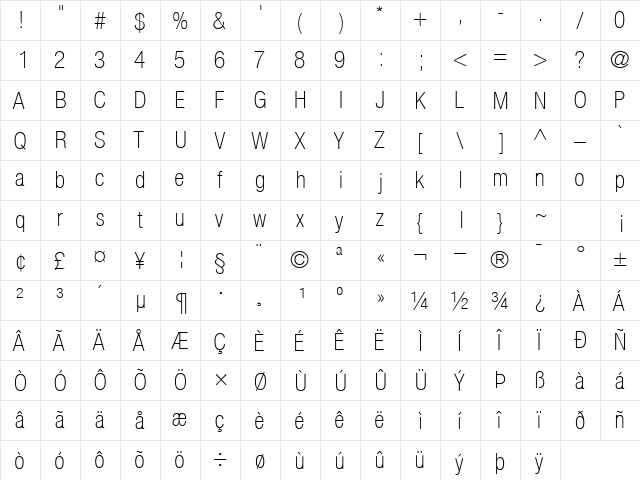
ContextRepriseThinCondSSK Regular Font Preview
Design Context for ContextRepriseThinCondSSK Typeface
ContextRepriseThinCondSSK takes a measured approach to typography — its balanced proportions and neutral character make it a reliable workhorse for both digital and print work. The delicate stroke weight brings airiness and refinement to layouts. Its narrow stance lets it pack a punch even in space-constrained designs.